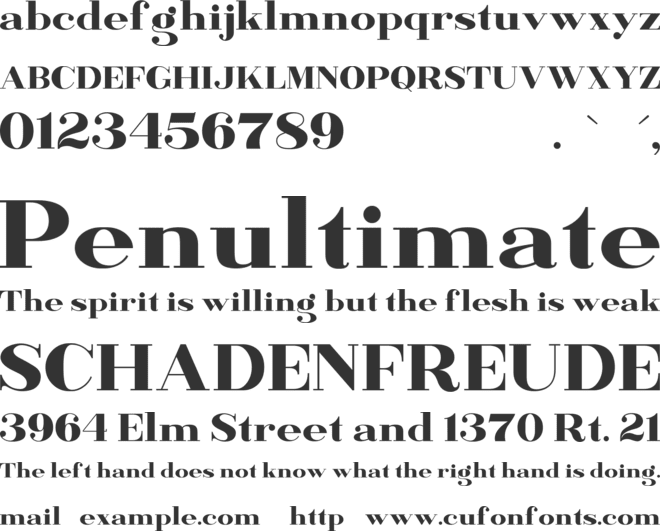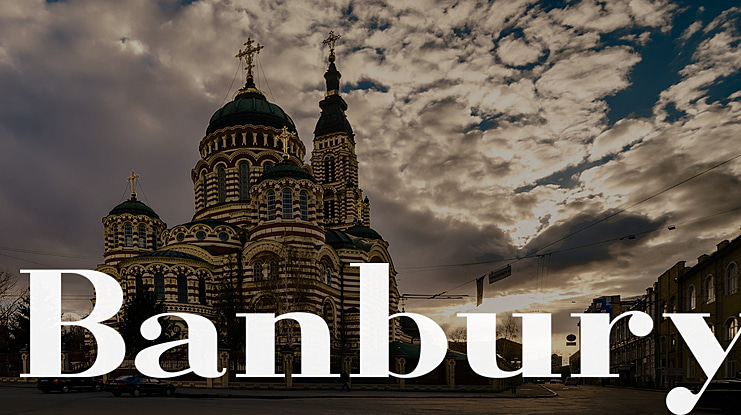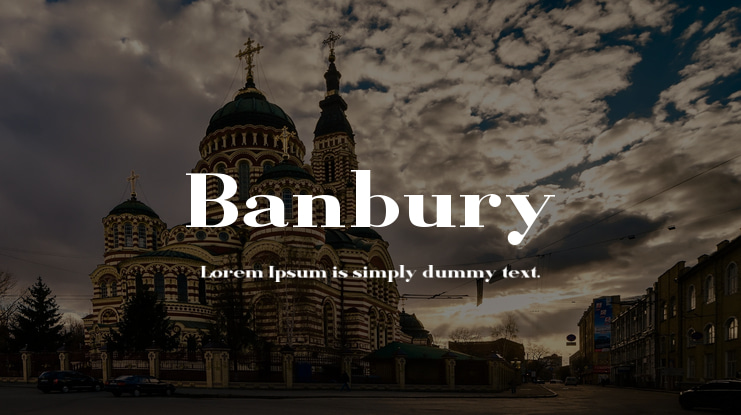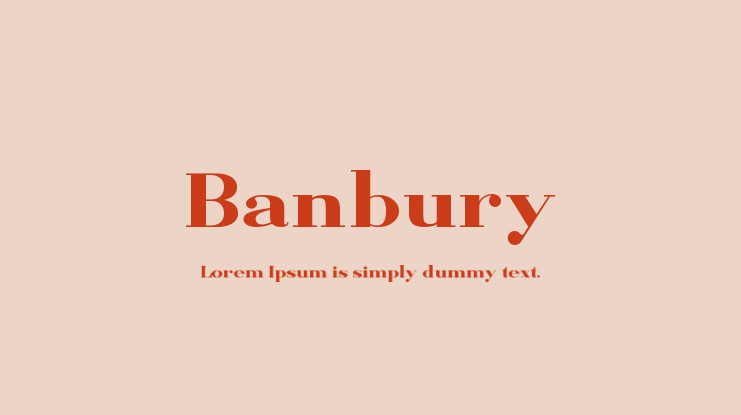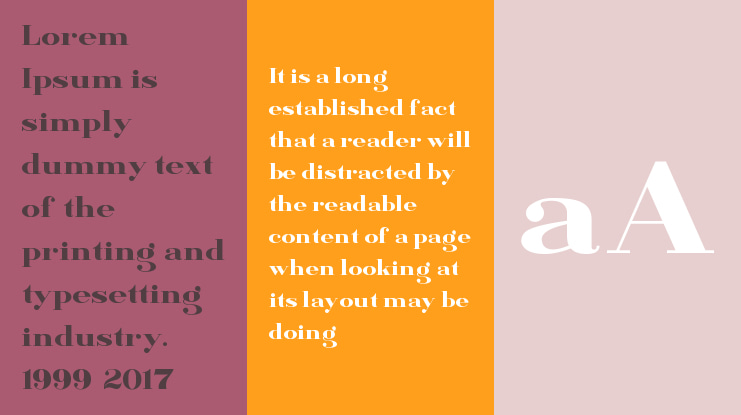
Thanks for taking a look! Banbury is a Neo Classical display font inspired by traditional English bold typefaces. The thick line weights paired with hairline serifs create contrast for an elegant and dynamic look. Use Banbury for a luxury logo, publishing, or movie poster. Basic/extended latin, punctuation, European accents, diacritics, ligatures, 80% small caps, kerning, and Italic are included in the full versions. The demo version contains basic latin, numbers, and very limited kerning.